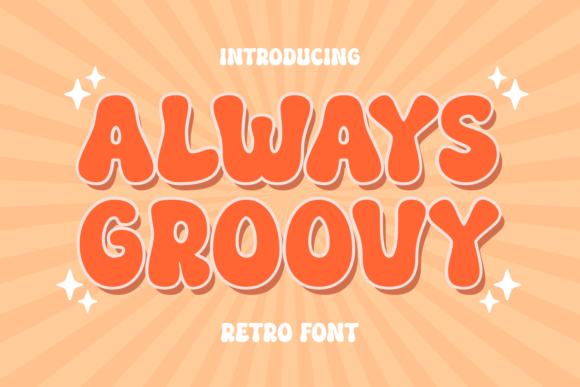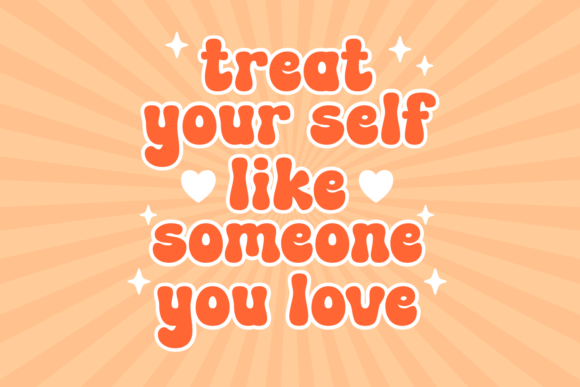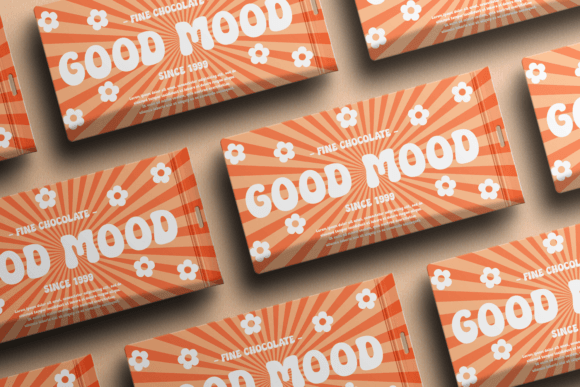
Always Groovy Font
Always Groovy is a fun, retro-style display font. Its casual and cheerful vibe is perfect for all your hippie, flower-power designs! It is also PUA encoded which means you can access all the glyphs and special characters with ease!